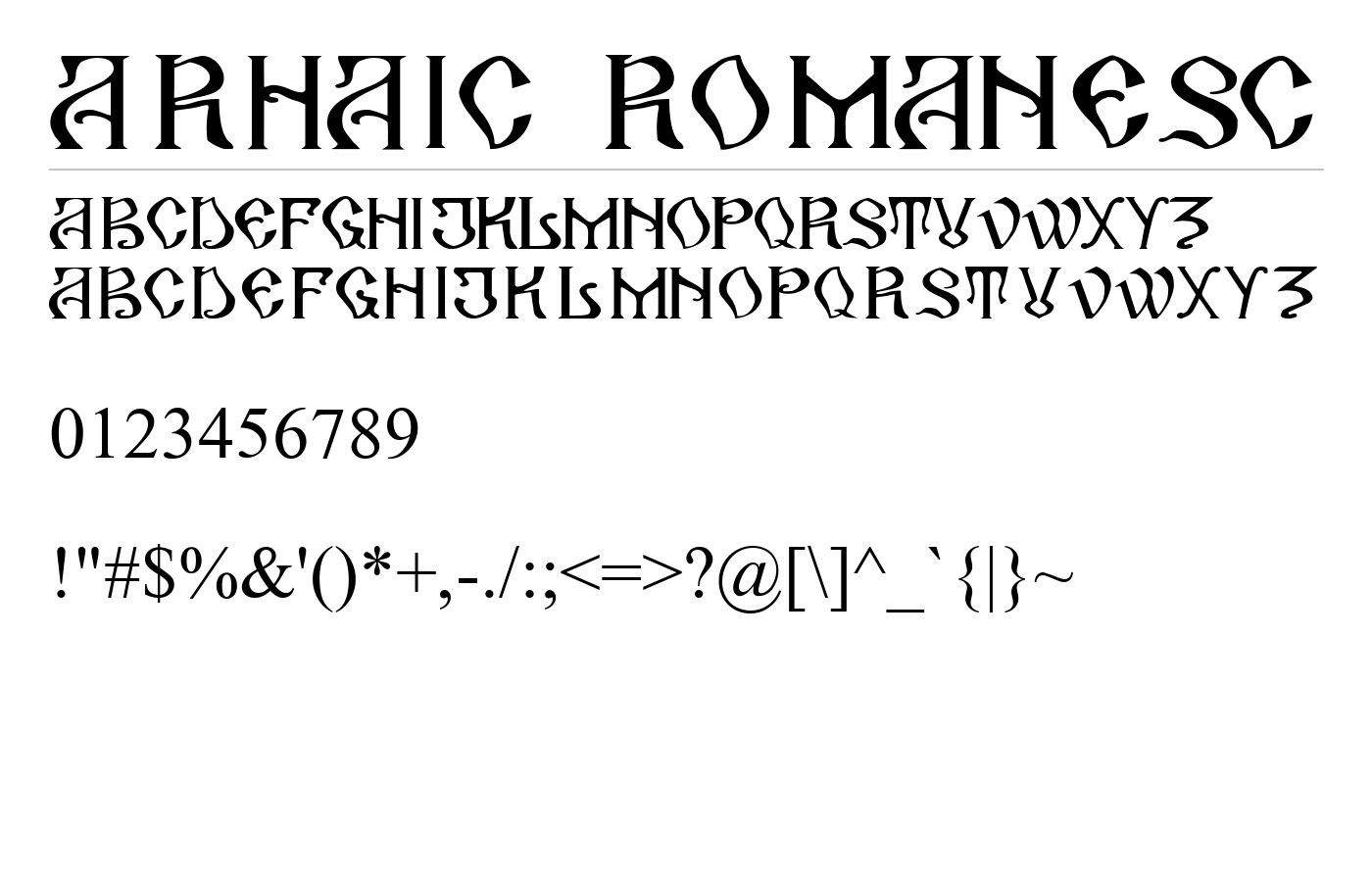
Arhaic Font is a decorative serif typeface with a bold, archaic style that combines sharp, angular strokes with pointed serifs, evoking a medieval or Gothic feel. Its unique letterforms with high contrast and stylized curves give it a distinctive, historical character, making it ideal for headlines, logos, or projects that need a mysterious, vintage, or fantasy-inspired look. This font works best in display settings where its intricate details can shine and create a strong visual impact.
Arhaic Font